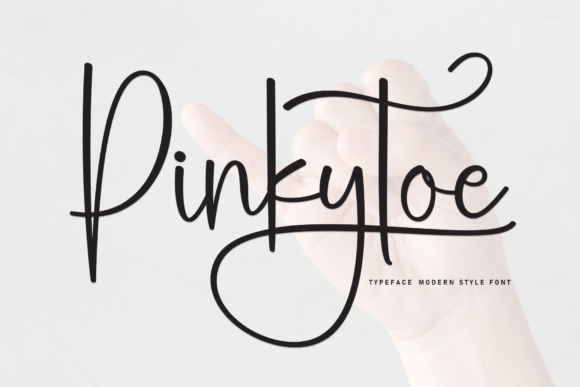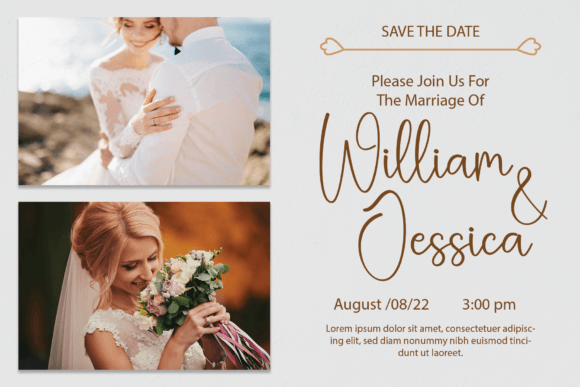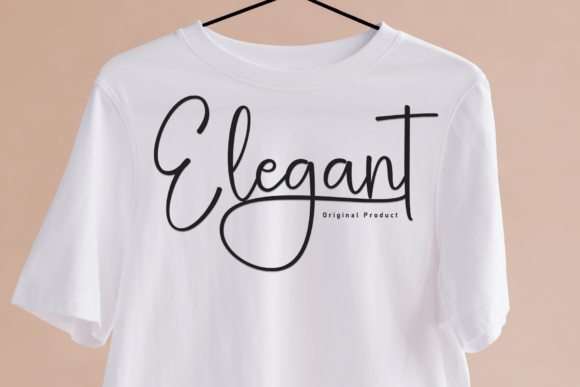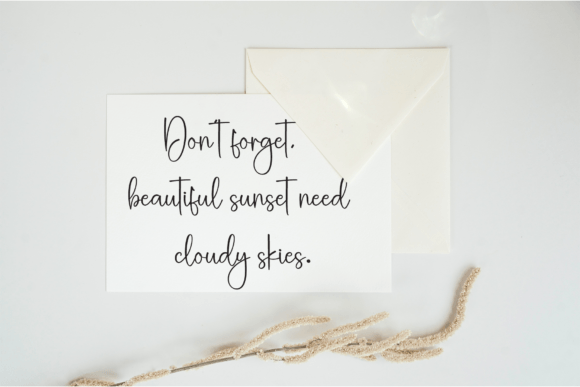
Pinkytoe Font: Cute Cursive Script for Wedding & Branding Design
About the Pinkytoe Font
Unleash your creativity with Pinkytoe Font, a versatile font perfect for a wide range of applications. Pinkytoe is a sweet and cursive handwritten font. This gentle font will look gorgeous on a variety of design ideas. It will add a joyful and romantic touch to each of your projects!  Perfectly fit for branding, logo, wedding things, greeting cards, fashion, lookbook, marketing promotion, and anytime you want to look fancy and elegant but still casual.
Pinkytoe’s delicate cursive style excels in applications requiring a touch of romantic charm. Ideal uses include wedding invitations, greeting cards, short headlines, and logo designs for brands emphasizing femininity and elegance. It works particularly well for packaging of beauty products or handcrafted items.
However, its cursive nature makes it less suitable for body text or UI elements where readability is paramount. Avoid using Pinkytoe in lengthy paragraphs or situations demanding high legibility.
Pairing Pinkytoe with a clean sans-serif like Montserrat for body text provides excellent contrast and readability. For a more playful look, consider a geometric sans-serif such as Futura. Alternatively, a classic serif like Garamond could create a sophisticated and timeless feel. The overall mood of Pinkytoe is undeniably romantic and friendly, with a touch of casual elegance.
Pinkytoe Font Usage Examples
Pinkytoe Font Example